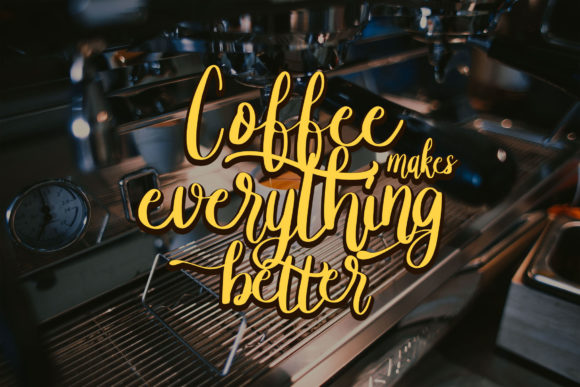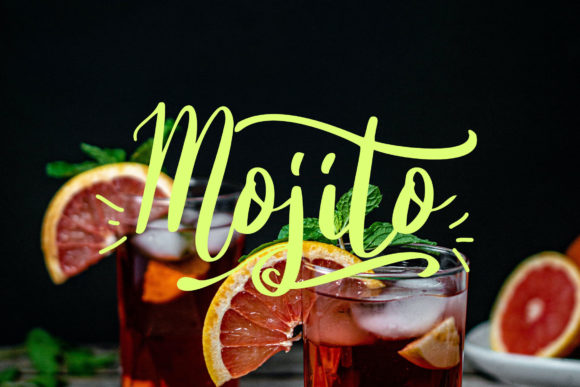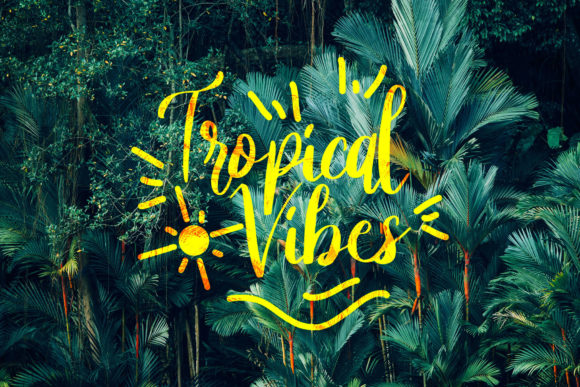
Introduction to Asther Font
Remember that moment when you’re brainstorming ideas for a creative project, and everything just falls into place? The design starts to flow, and you know you’ve found the perfect font to bring it all together. For many designers, that moment often involves the Asther Font. This elegant, cursive script font is more than just a pretty face – it’s a versatile design resource that can elevate any project from basic to breathtaking.
With its well-balanced aesthetic and high-quality feel, Asther Font is perfect for a wide range of applications, from signature logos and badges to fashion, luxury, and invitation designs. Whether you’re working on a modern or classic project, Asther Font is sure to add a touch of sophistication and style. And the best part? It’s available for free download, complete with a transparent background, making it easy to incorporate into any design.
Key Features of Asther Font
- High-quality design resource ideal for creative projects, offering a unique and stylish aesthetic.
- Includes a range of characters, including uppercase and lowercase letters, numbers, and special symbols, making it a versatile design resource.
- Perfect for use in digital design, such as logos, graphics, and typography, as well as print design, including business cards and brochures.
Honest Review: Asther Font
I recently stumbled upon the Asther Font and was excited to give it a try. As a designer, I’m always on the lookout for high-quality design resources to elevate my creative projects. The Asther Font is a free download, which is a major plus in my book.
- ✨ The font has a unique, modern design that’s perfect for a variety of creative projects.
- ✨ The transparent background makes it easy to overlay on top of images or other design elements.
- ✨ The font is highly customizable, with a range of font sizes and styles to choose from.
- ⚠️ The font is not as versatile as some other fonts I’ve used, and may not be suitable for more complex designs.
- ⚠️ The font is a bit on the thicker side, which can make it difficult to read at smaller sizes.
Overall, I’d say the Asther Font is a solid addition to any designer’s toolkit. While it may not be perfect, it’s a great option for simple designs and is free to download. Just be aware of its limitations and use it accordingly.
Asther Font
The Asther Font is a high-quality, free design resource ideal for any creative project. This font features a transparent background, making it perfect for overlaying text on images or backgrounds.
Tips for Getting the Most Out of Asther Font
Experiment with different font sizes, colors, and styles to create unique designs. Use the font’s transparency feature to create overlays or subtle text effects. Combine the Asther Font with other design resources to create stunning visual effects.
The Asther Font is perfect for creating social media graphics, presentations, reports, and documents. Use it to add a professional touch to your designs or to create unique and eye-catching visual effects.
Is Asther Font a high-quality design resource?
Asther Font is a high-quality design resource that’s designed to meet the needs of creative professionals. It features a unique blend of style and functionality, making it perfect for a wide range of creative projects. With its high-quality design and transparent background, Asther Font is an excellent choice for any design project.